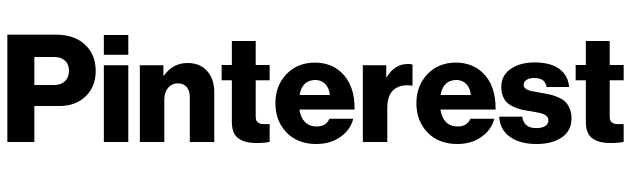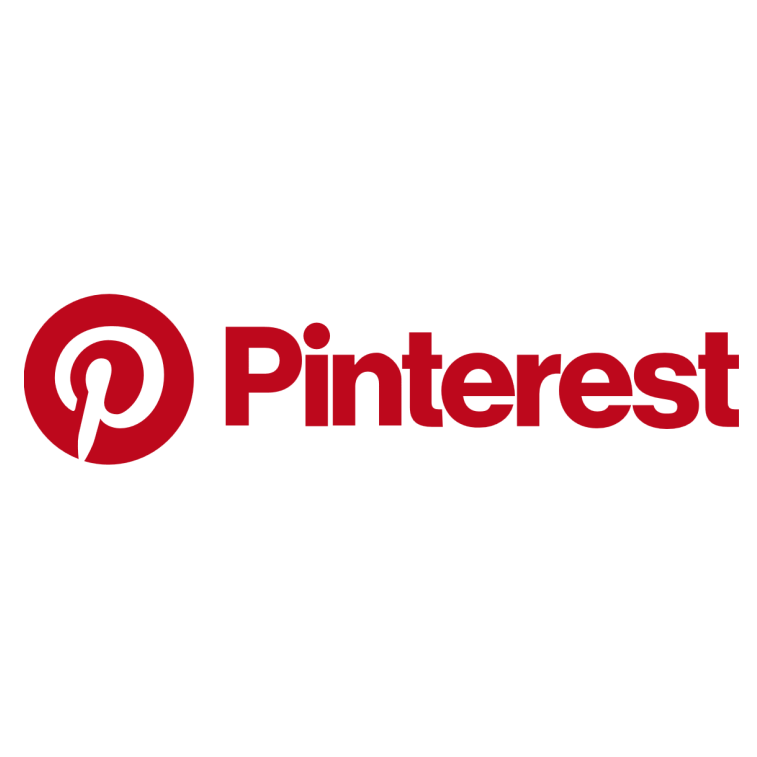
Pinterest Logo Font
Fonts in UsePinterest is a social media platform that allows users to discover, save, and share images and videos related to their interests and hobbies. It is often used for inspiration, planning, and shopping.
Pinterest retired its script wordmark in 2017 and launched a new one featuring a rounded "i" dot and a tweaked "s" to pair better with the letter "e". The new wordmark uses a grotesk sans serif font similar to Neue Haas Grotesk Display Bold. The previous script wordmark was custom-lettered and Jocham from Hubert Jocham Type is a similar font option.